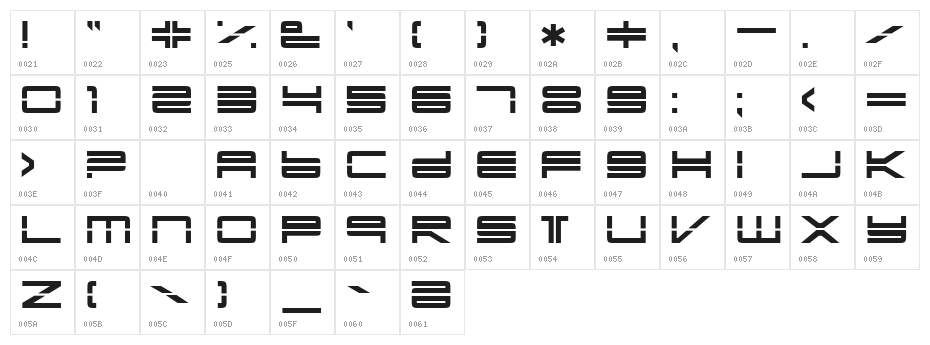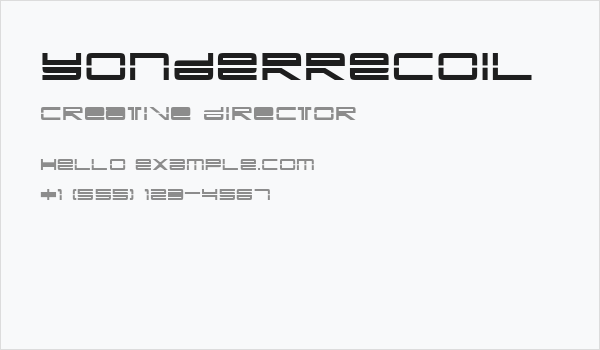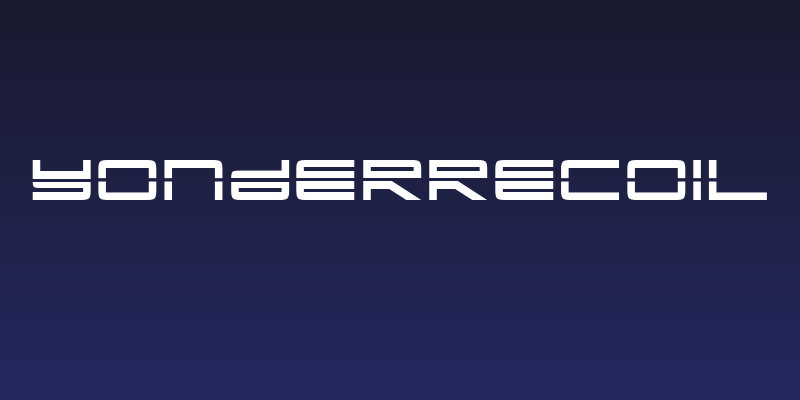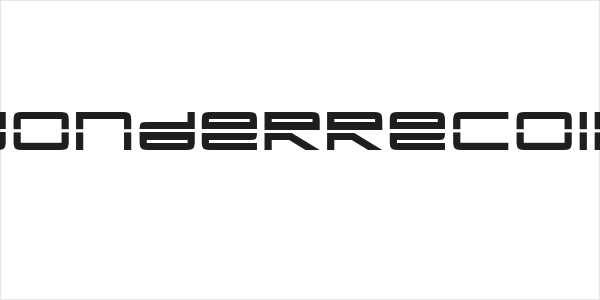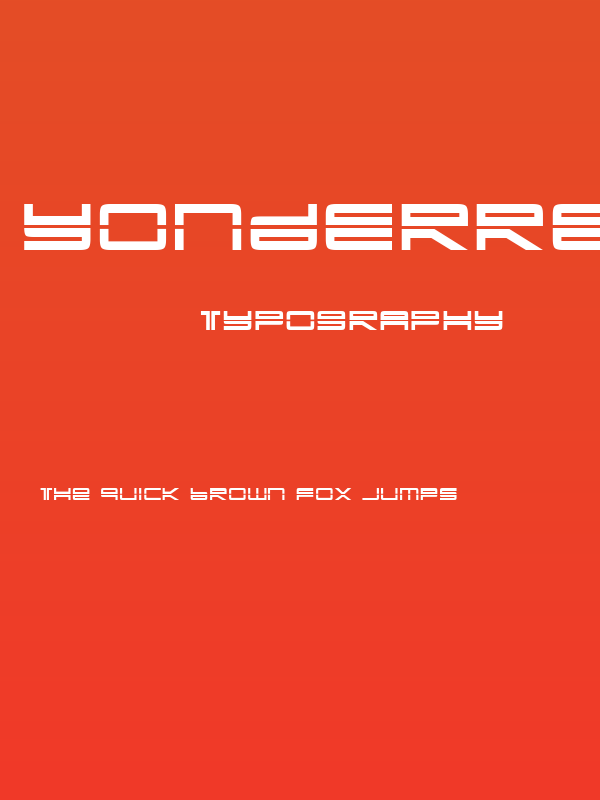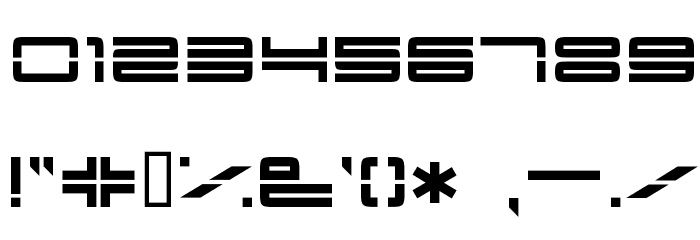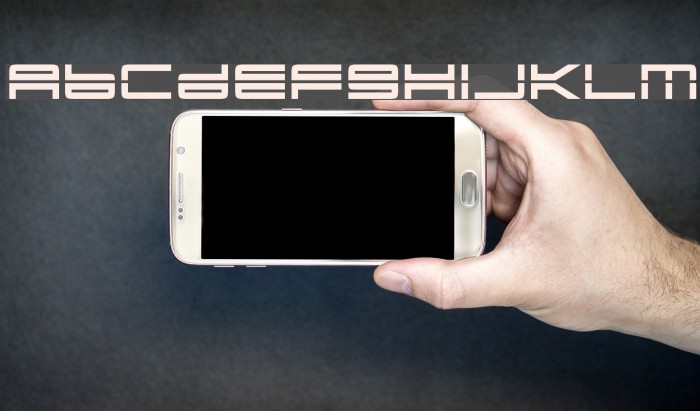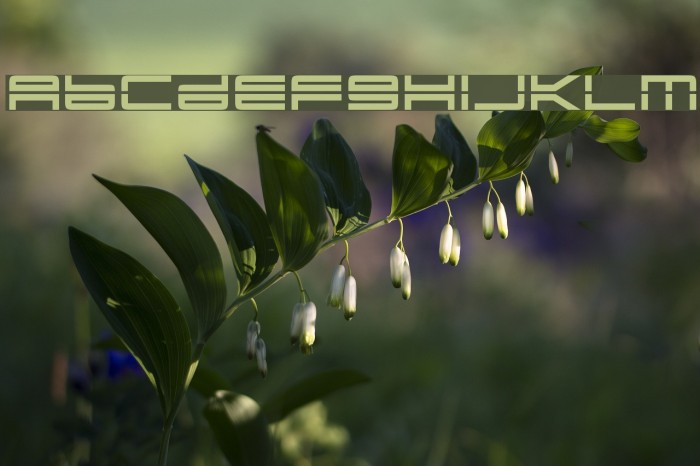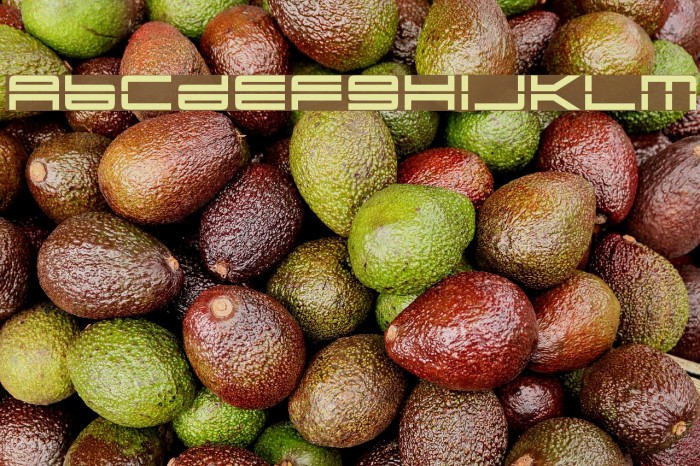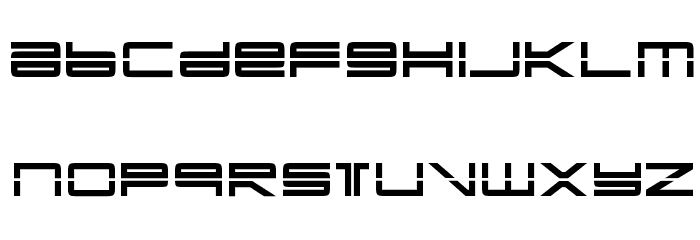
YonderRecoil Font
YonderRecoil Description
This font features a futuristic and geometric design, characterized by its sharp angles and clean lines. The uppercase and lowercase letters share a consistent style, with a unique blend of straight edges and subtle curves. The numerals and special characters maintain this aesthetic, providing a cohesive look across all glyphs. The font's structure is bold and impactful, making it suitable for attention-grabbing designs. Its modern appearance is enhanced by the uniform stroke width and the absence of serifs, giving it a sleek and contemporary feel.
| Proposed Projects | Ideal for sci-fi themed projects, technology branding, video game titles, and modern posters. |